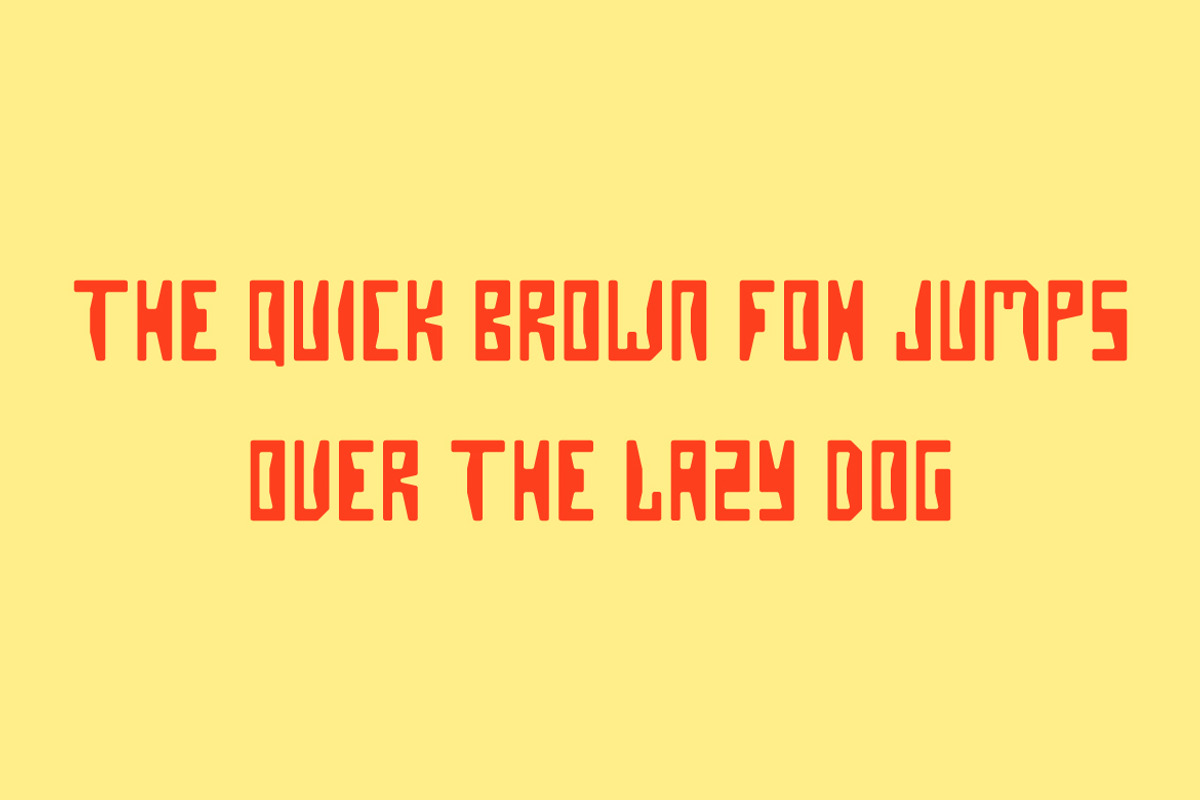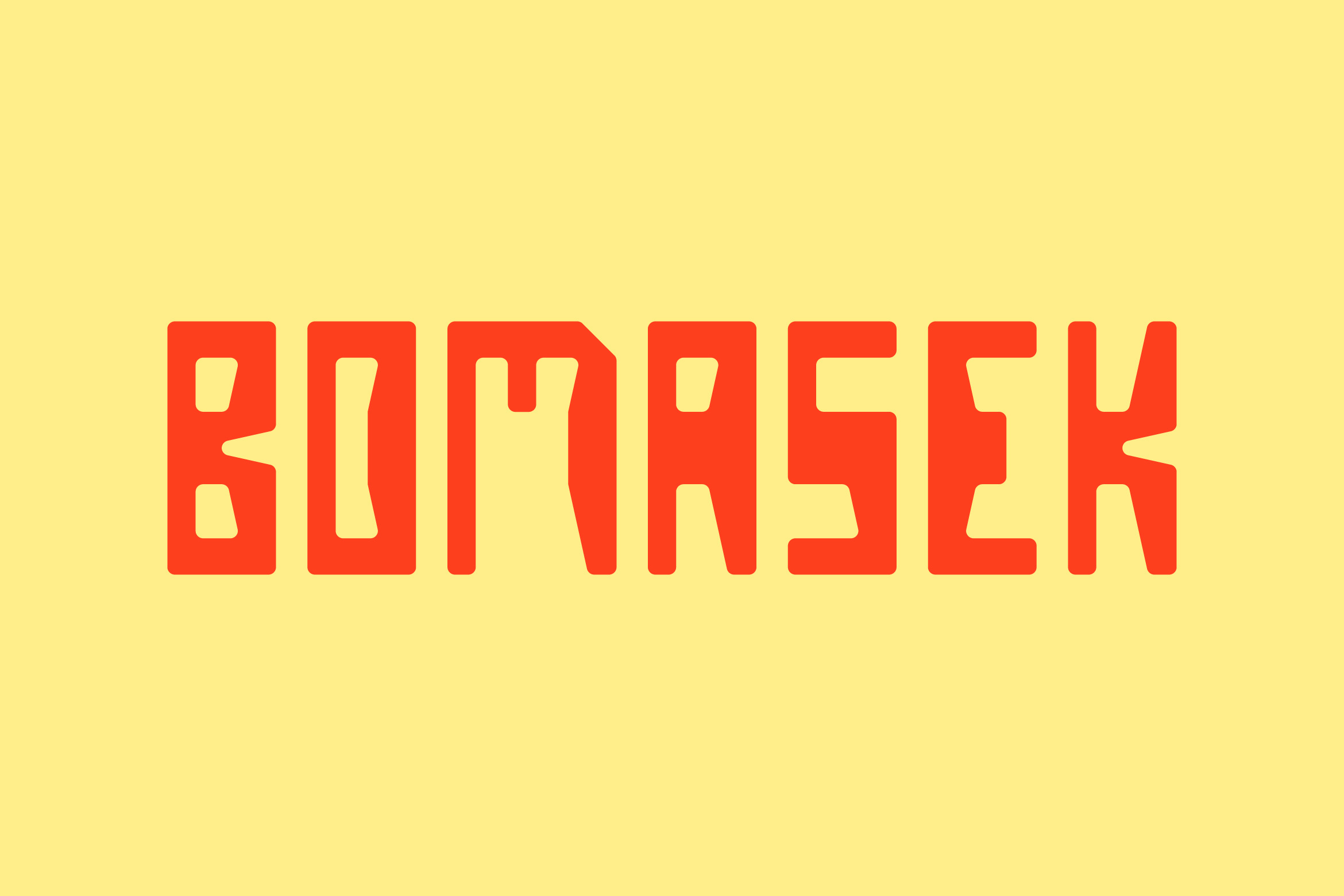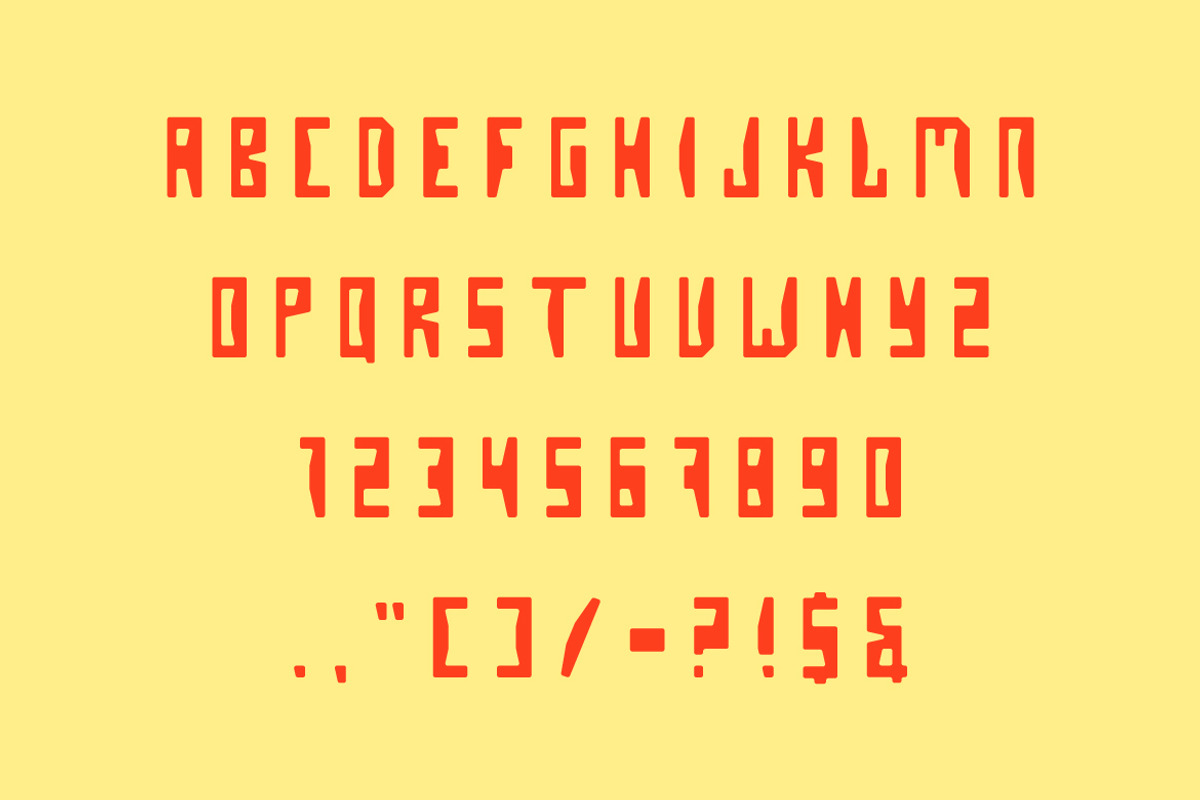
Bomasek -Bold Display Font
Bomasek is a bold and powerful display font designed to make a strong visual impact. With its thick, eye-catching letterforms, it’s perfect for logos, posters, headlines, branding, and any design that demands attention. Add a confident and dynamic touch to your projects with Bomasek!